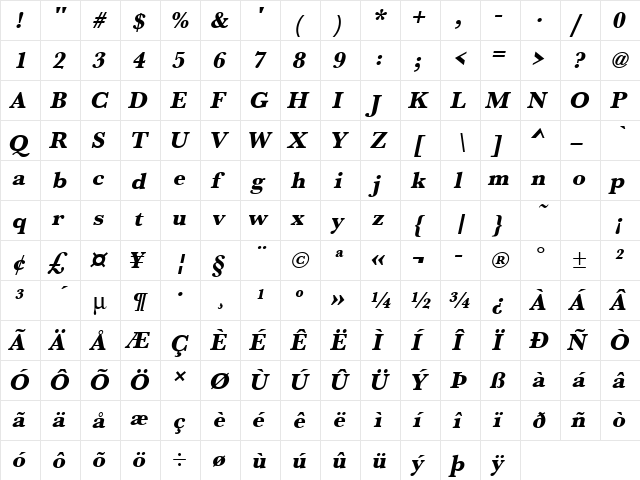
URWBaskerTExtBol Oblique
URWBaskerTExtBol offers clean, dependable letterforms without strong stylistic allegiance, making it a practical choice for designers who need flexibility. The slanted form adds forward momentum and visual energy.